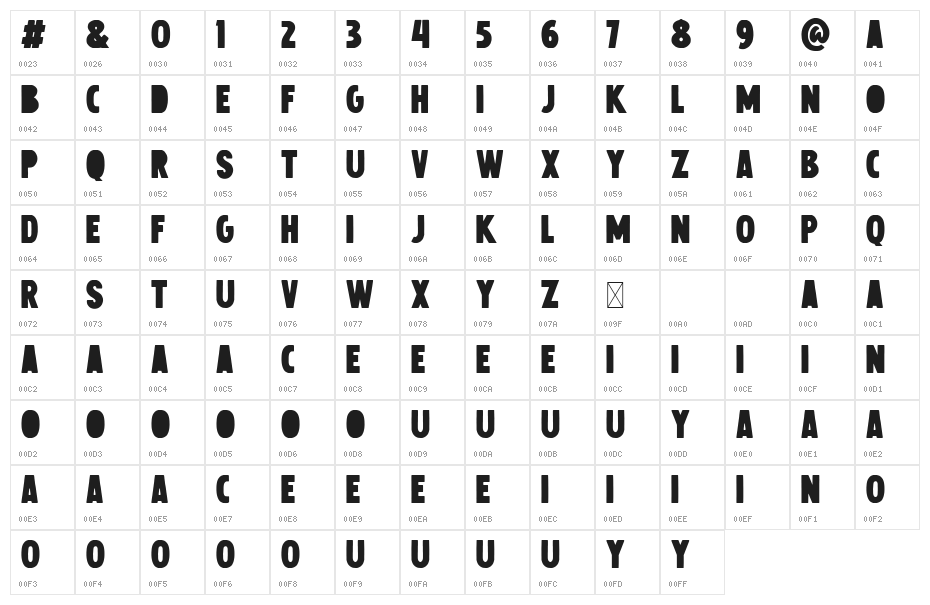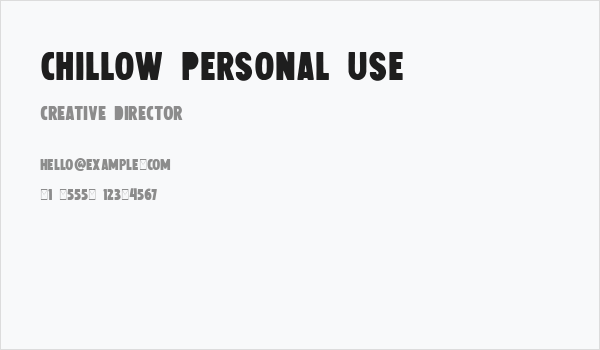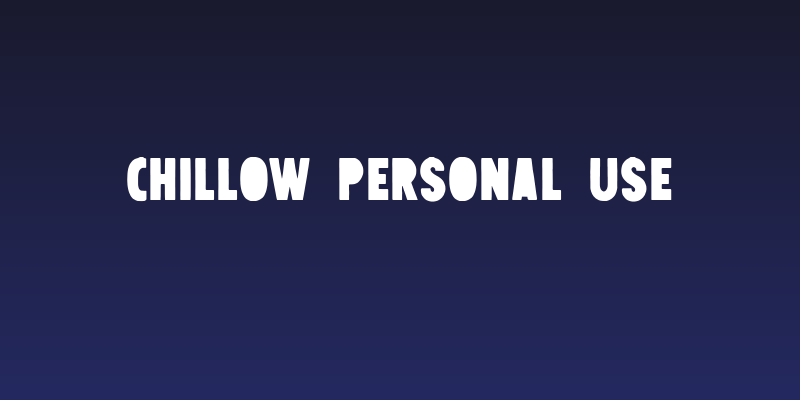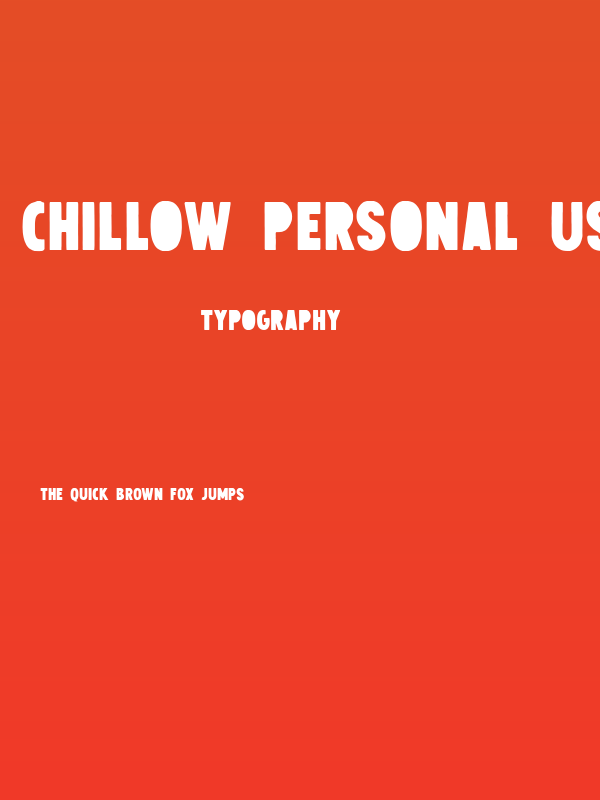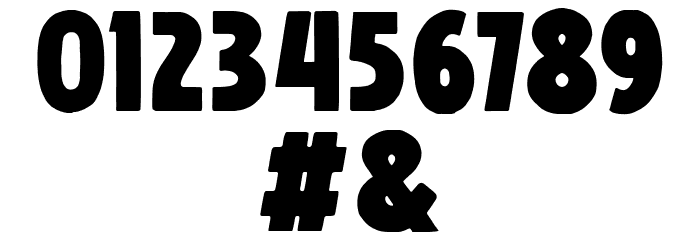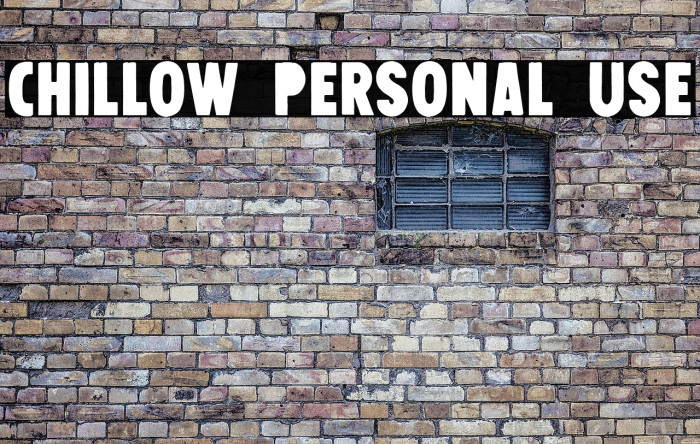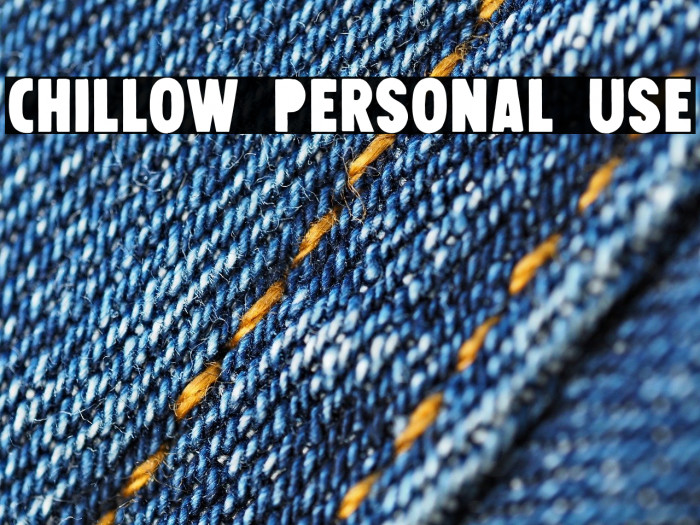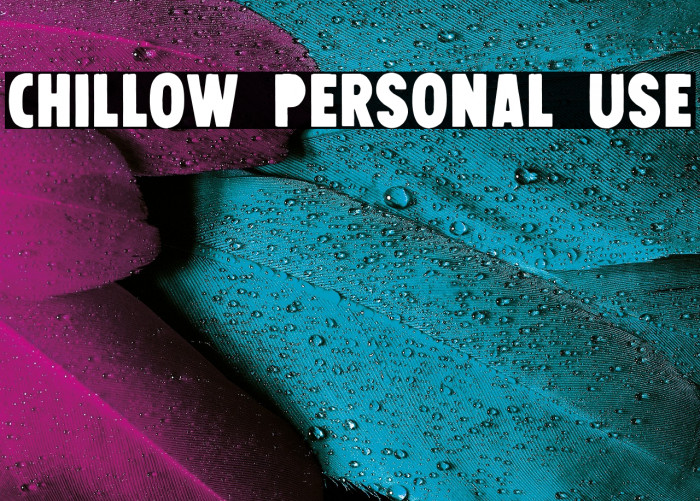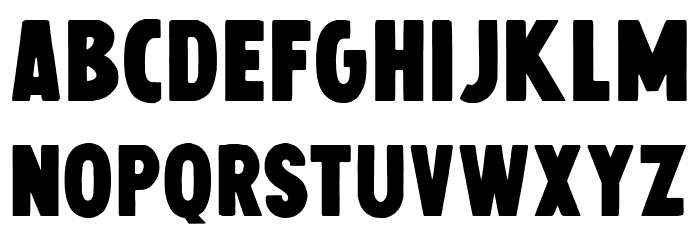
Chillow Personal Use Font
Chillow Personal Use Description
This font features bold, blocky characters with a strong presence, making it ideal for attention-grabbing designs. The uppercase letters are robust and evenly spaced, providing a sense of stability and impact. The numbers and special characters maintain the same boldness, ensuring consistency across all uses. The font's style is reminiscent of vintage poster typography, with a modern twist that makes it versatile for various design applications. Its thick strokes and uniform weight give it a powerful and assertive appearance, suitable for headlines and branding.
| Overall Style | Vintage, Modern |
| Proposed Projects | Ideal for posters, logos, branding materials, and headlines that require a strong visual impact. |